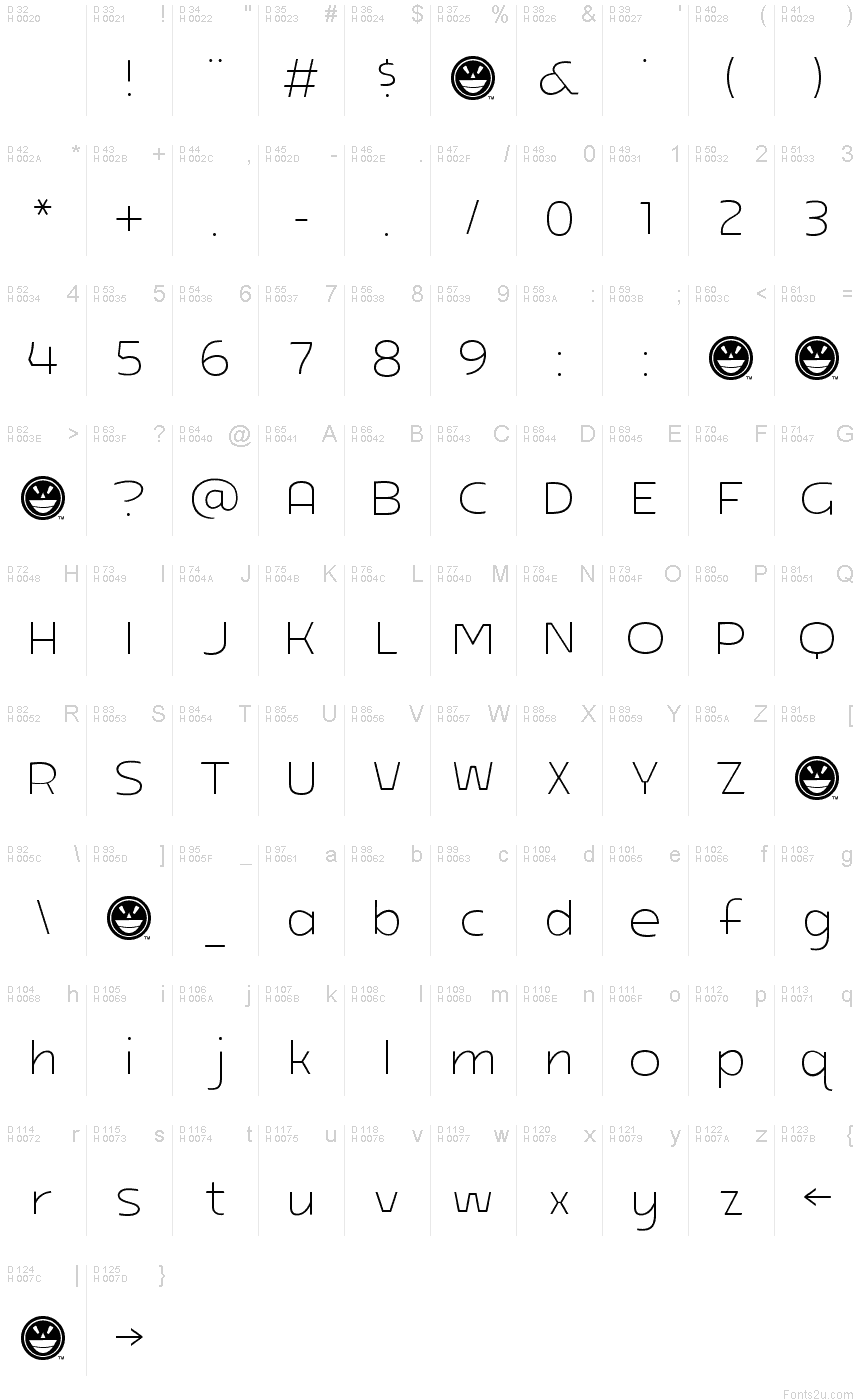
ARB-218 Neon Blunt MAR-50 Bold
ARB-218 Neon Blunt MAR-50 Bold by Fontry West is a free monoline geometric sans serif with tall, spare letterforms. Rounded arches and broad curves soften the squared framework. The even hairline strokes give the capitals a clean technical look.
Futuristic poster titles are its strongest use. Nightclub branding, electronic music artwork, and fashion labels also suit its tube-like construction and restrained space-age styling, especially for younger audiences drawn to retro-futurist graphics.
ARB-218 Big Blunt, originally known as No. 2 Plain Egyptian Blunt Type, was demonstrated by Alf R. Becker for sign painters and letterers in the March 1950 issue of Signs of the Times magazine. The digital version was released exactly 60 years after the font first appeared in print.
The font includes a neon-line effect with optional layers accessible from the font style menu. Stacking the layers produces a multicolor design.